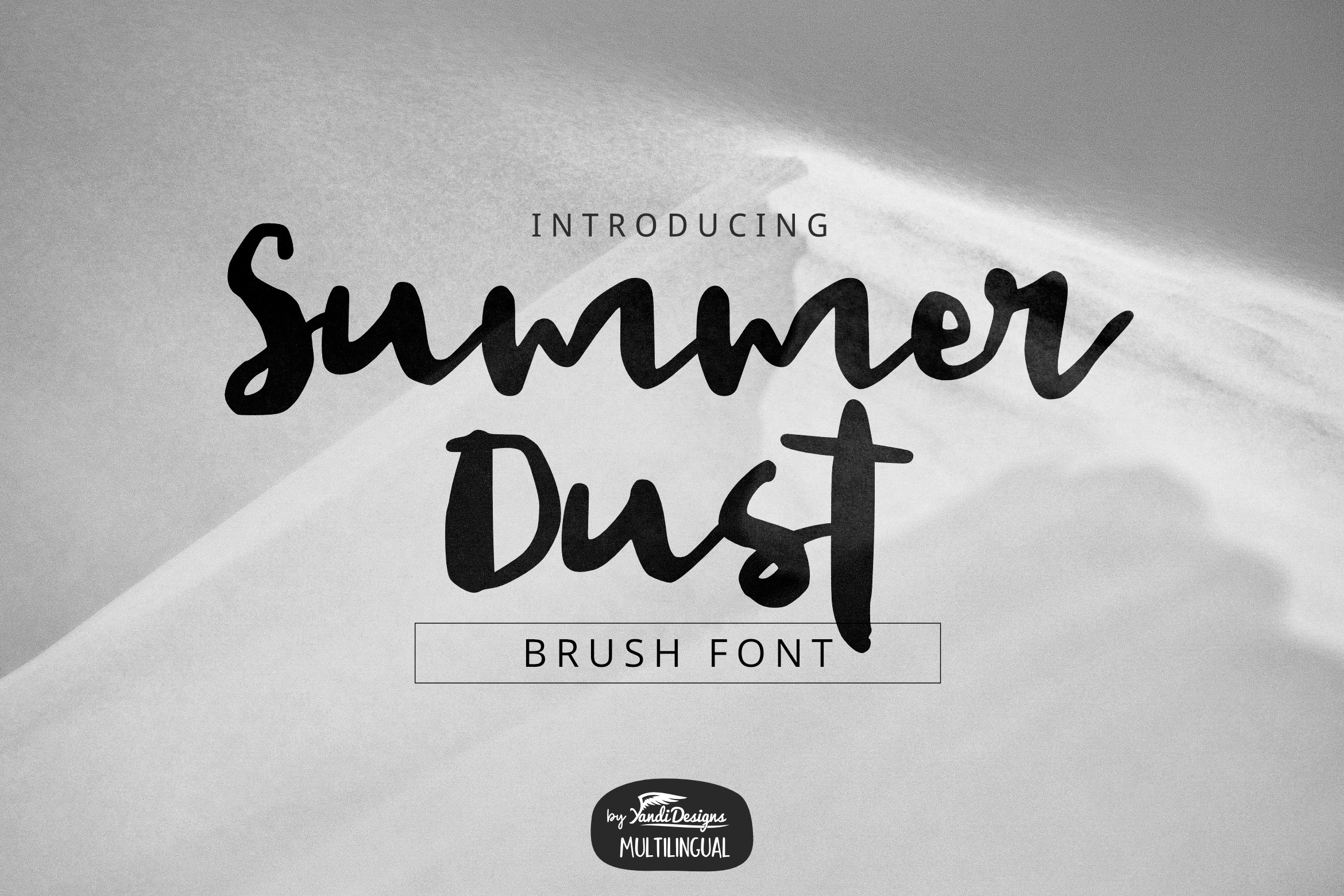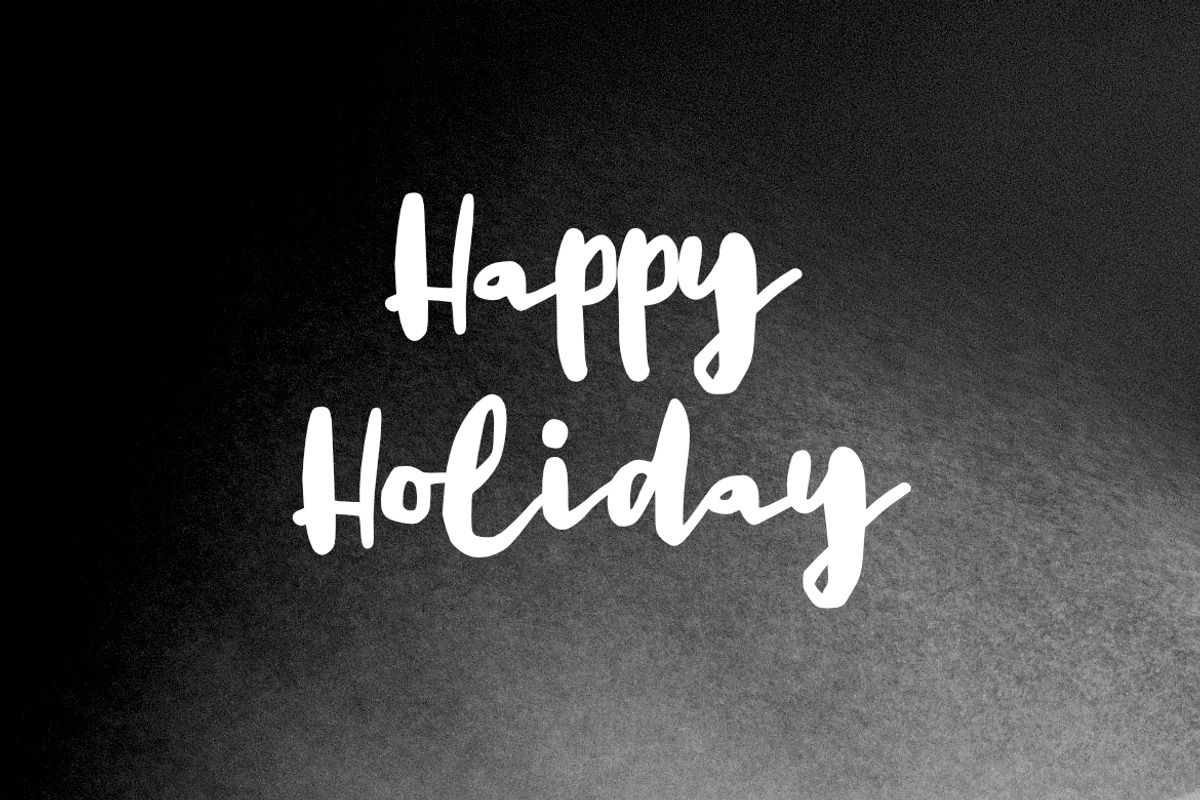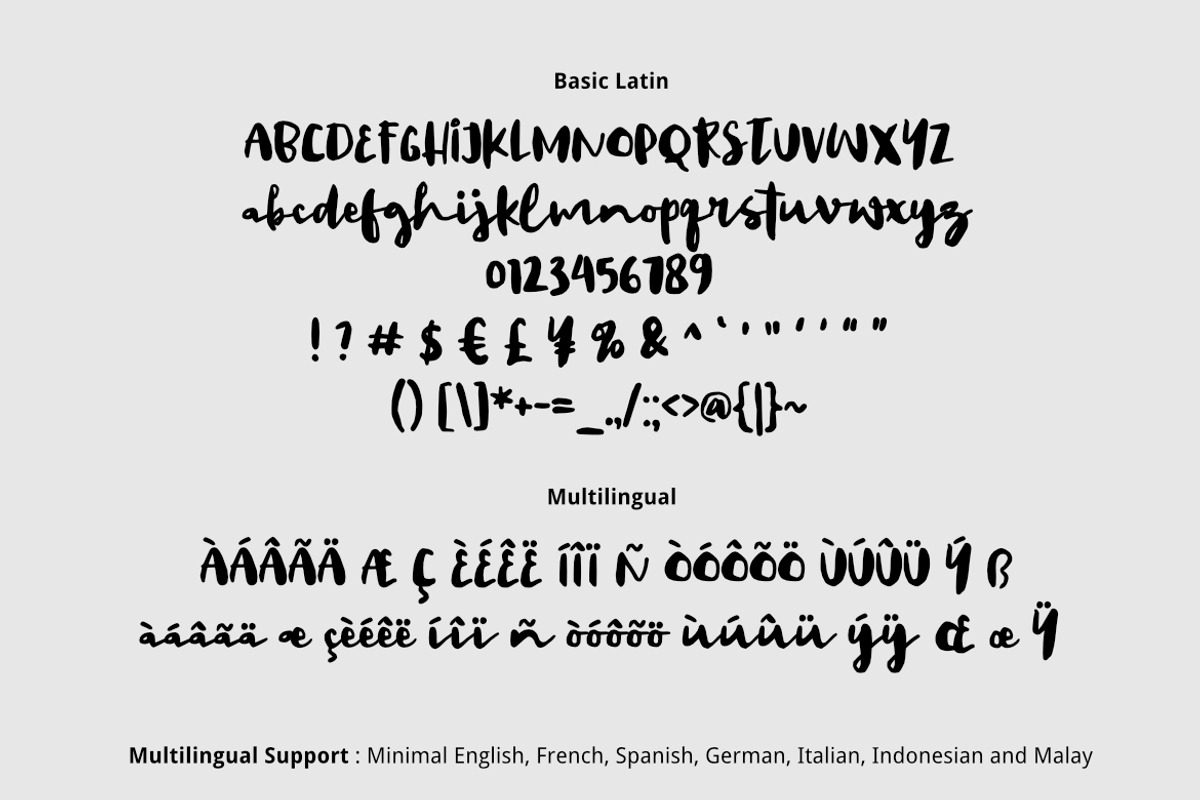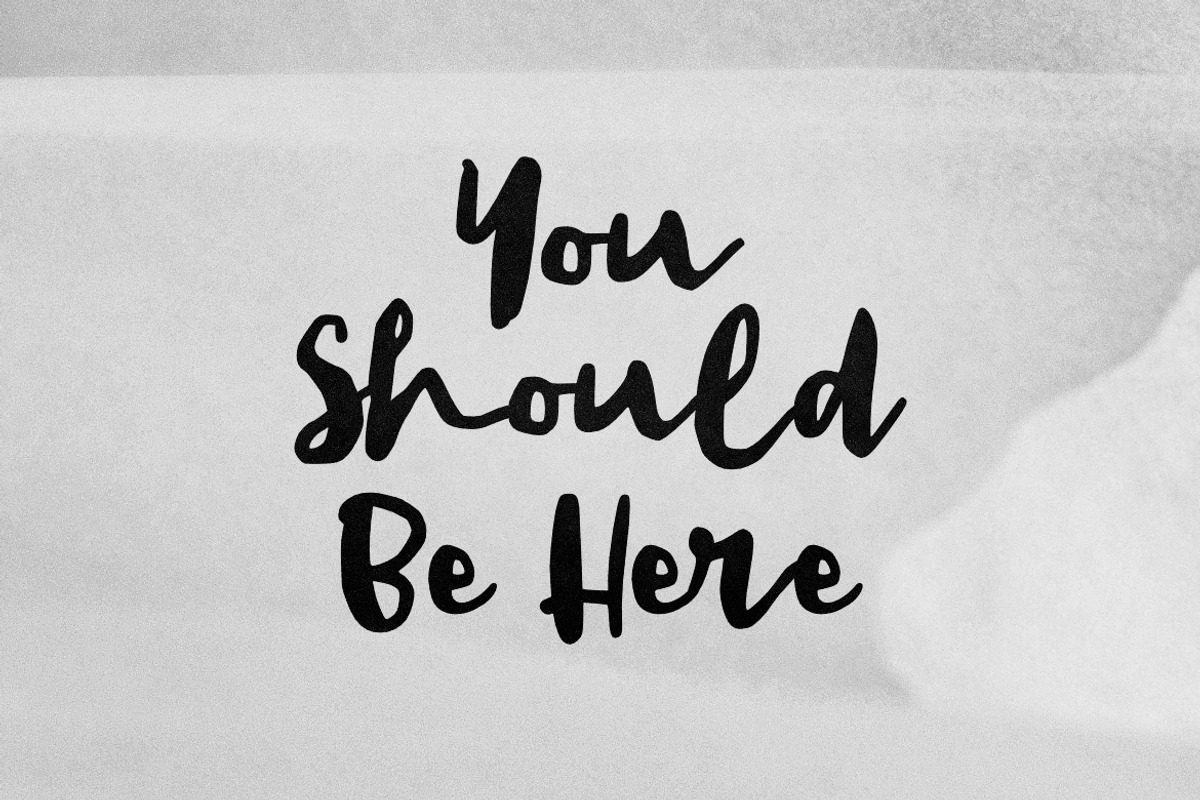
Summer Dust Font
Summer Dust Font is lovely cute multipurpose handmade brush font, suitable for many project children book, quotes, logo , heading , title etc.
Basic Latin (Standard English character , number, symbol) Multilingual Support (minimal English, French, Spanish, German, Italian, Indonesian, Malay)